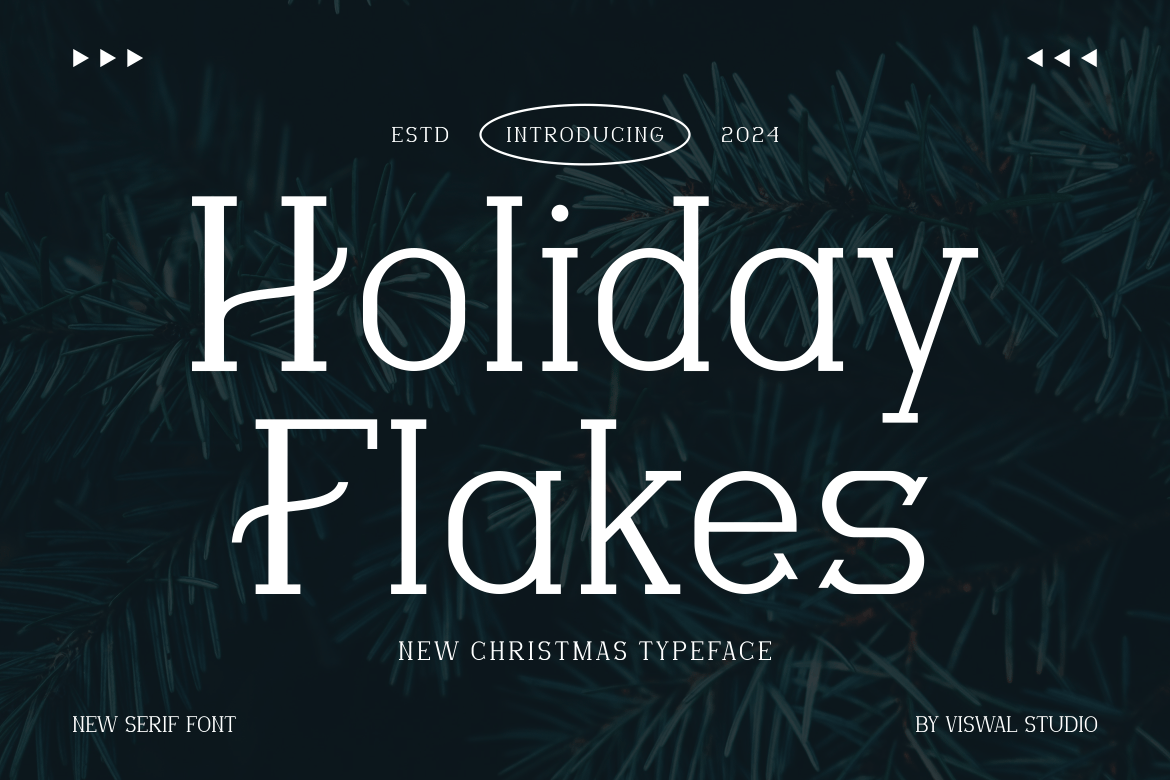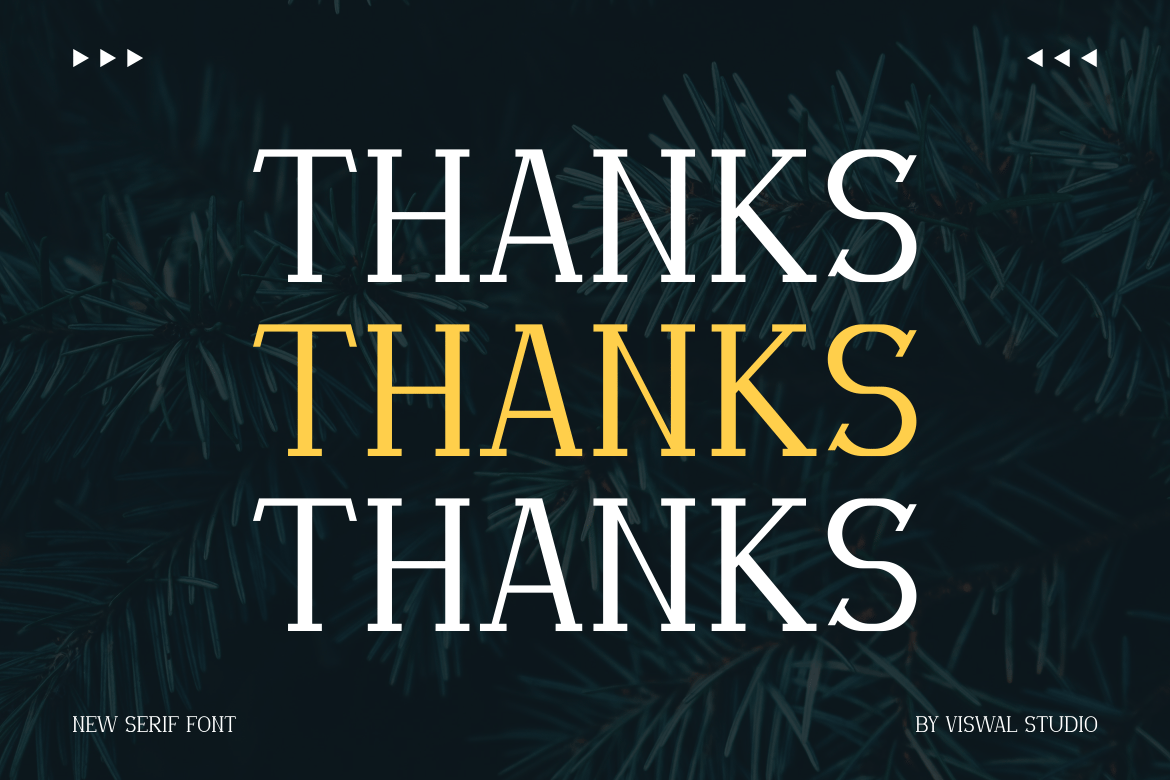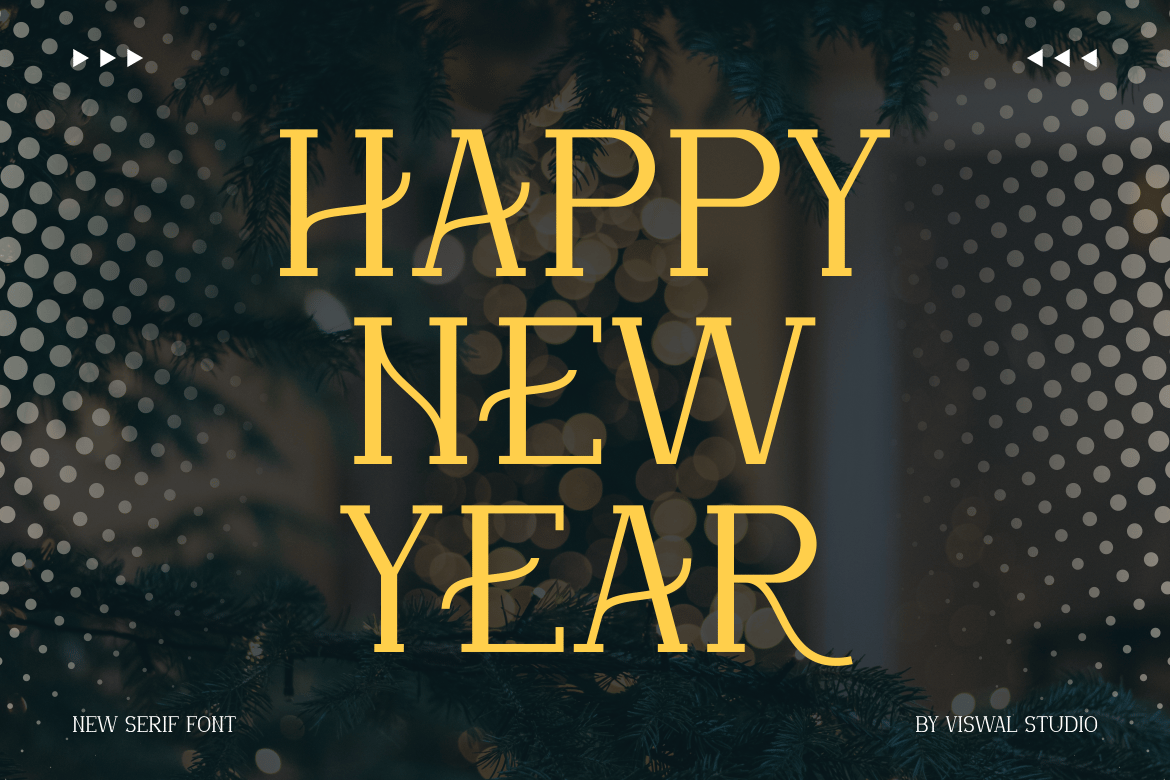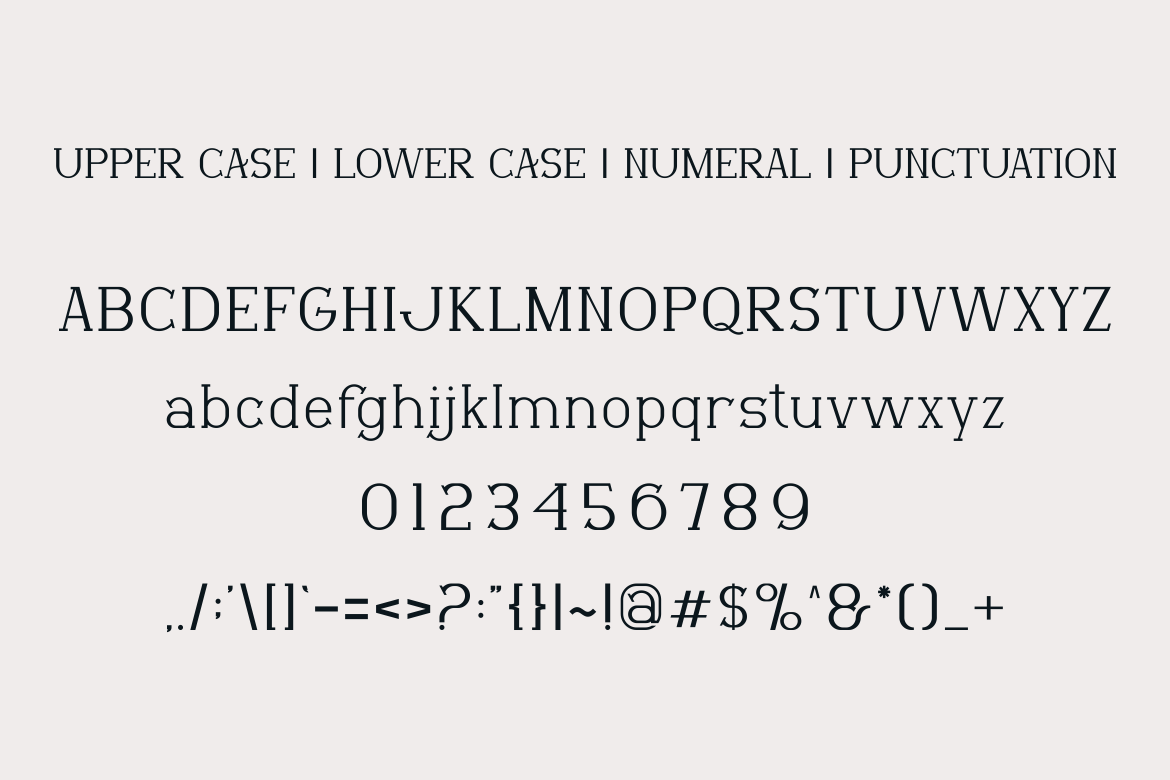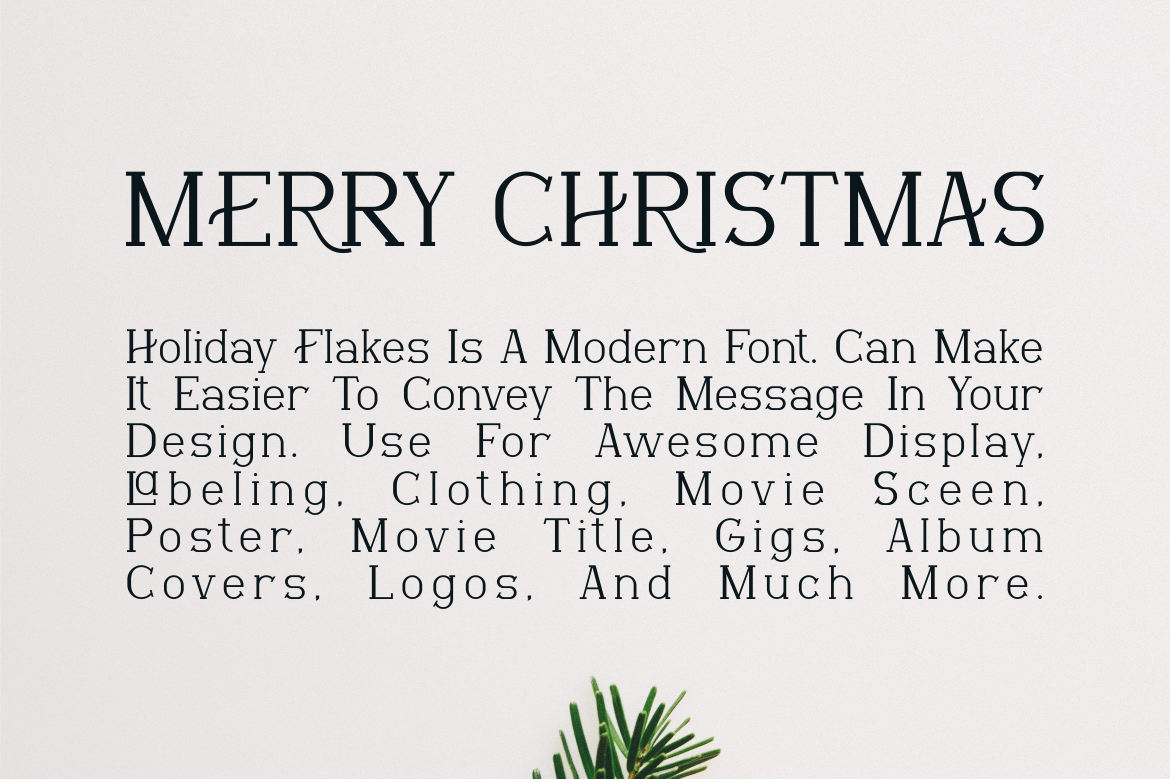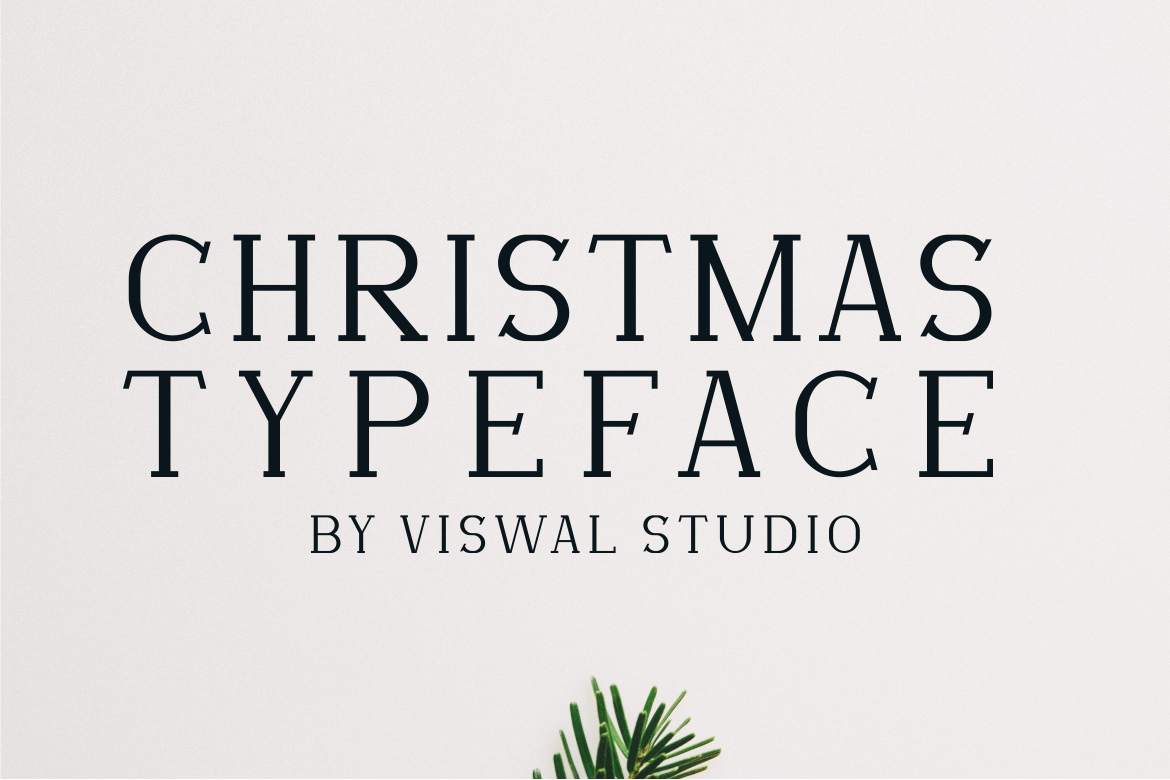
Holiday Flakes – Christmas Font
Presenting Holiday Flakes – Font is suitable for badge, labels, logo, branding, magazine, poster and etc. Our fonts have Uppercase & Lowercase, Numeral & Punctuation, Multilingual support and Opentype Features. For Amazing designs you can mix with other fonts as a complement.